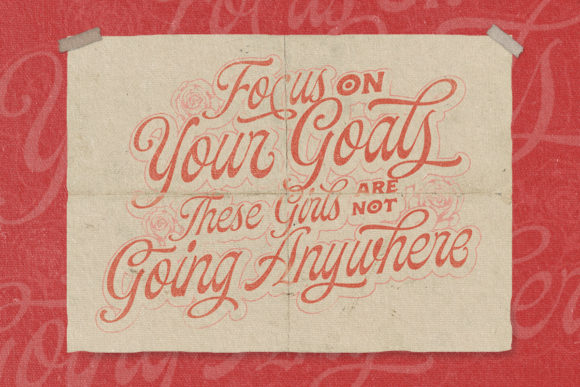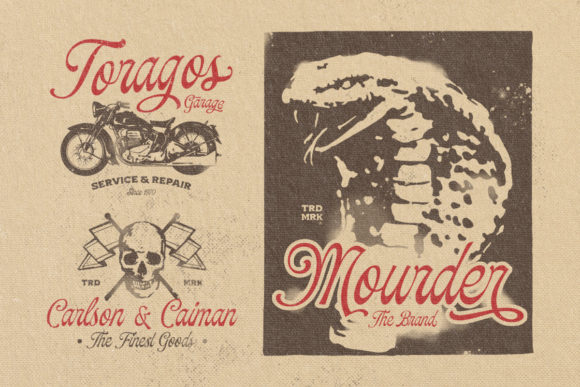
The Monstain Font
db-ku.com - Script & Handwritten -- The Monstain is a vintage and stylish script font. It is suitable for book texts, documentation, business reports, business correspondence, and corporate designs. This font is PUA encoded which means you can access all of the glyphs and swashes with ease!